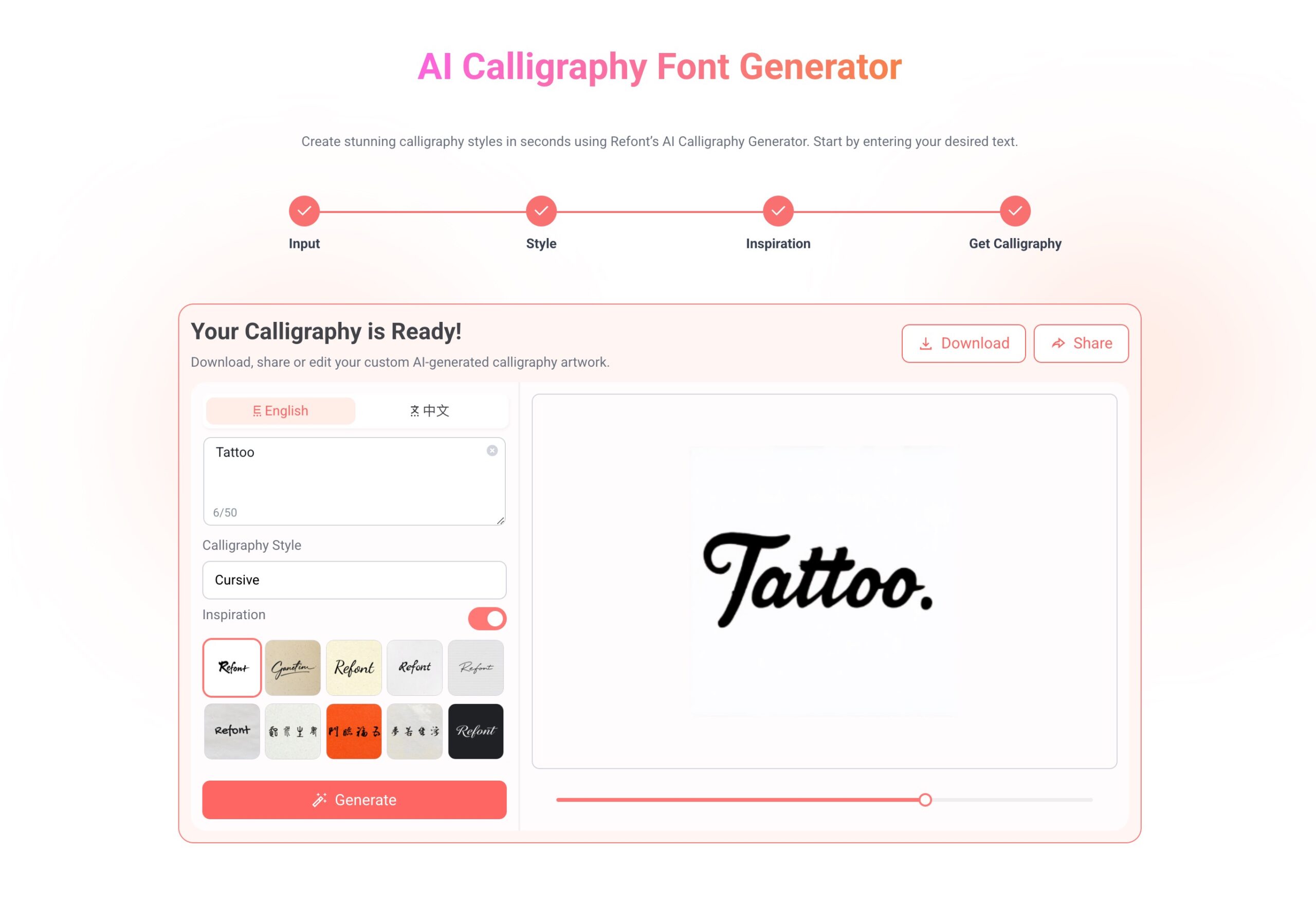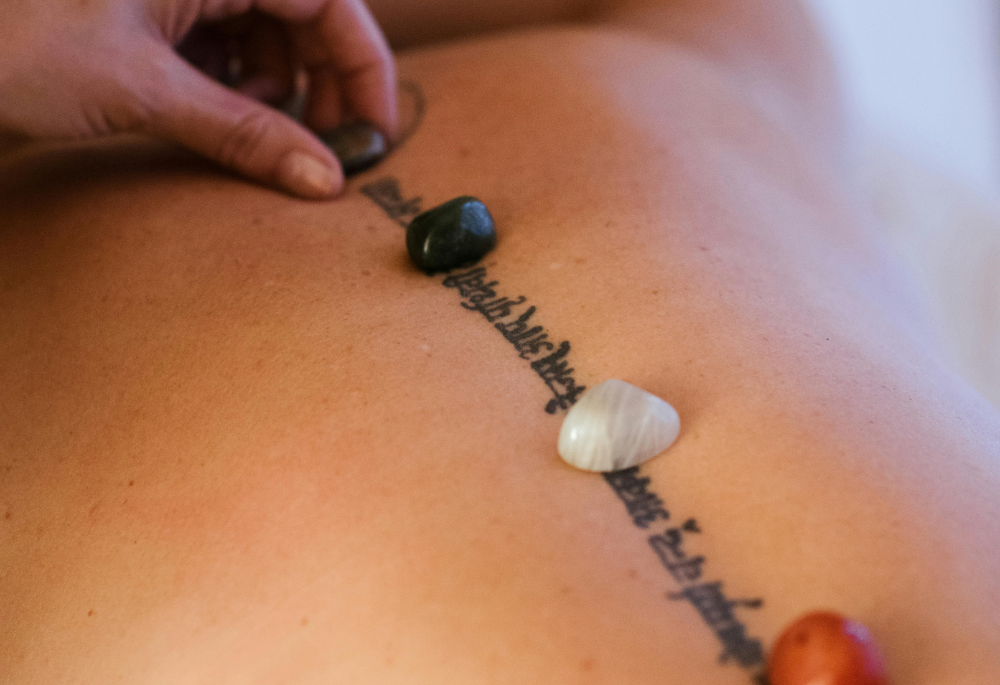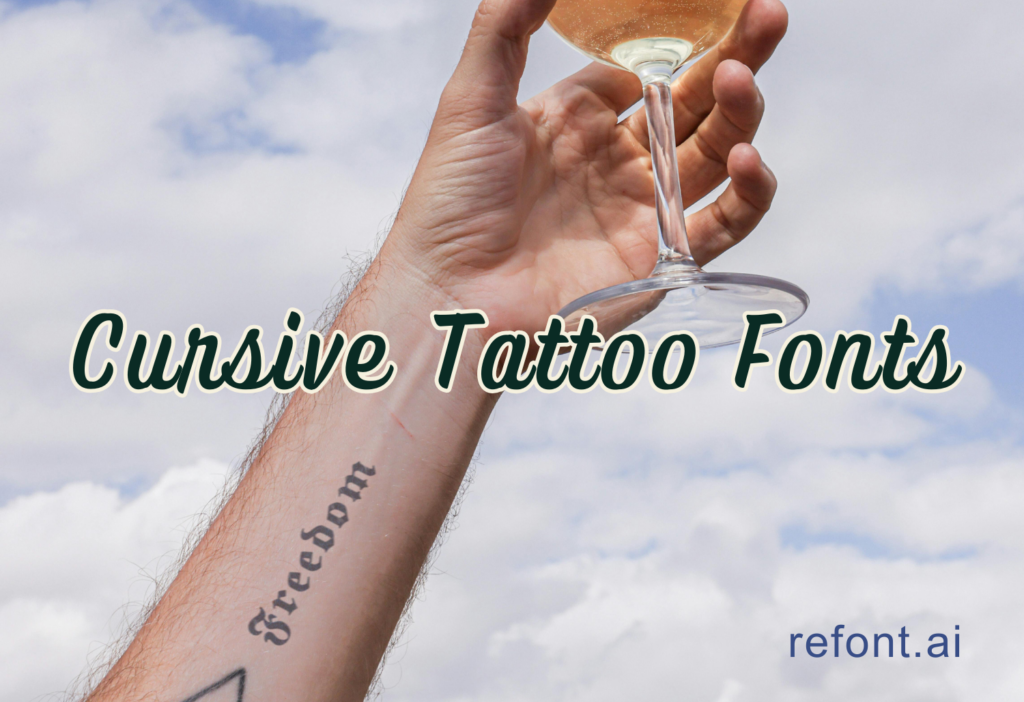
Free Cursive Tattoo Fonts
Tattoos tell stories—stories inked in flesh, etched in memory, and often written in beautiful cursive tattoo font. But not all cursive fonts translate well into skin art. Some curl beautifully on paper, others fade into a curly mess. So how do you pick the perfect cursive tattoo font that says “you” without turning into a smudge? Enter Refont. We’ve curated cursive tattoo fonts inspired by global tattoo culture, and we’ll show you how to use the Fancy Fonts Generator, AI Calligraphy Font Generator, and more to create reference-ready designs. Let’s dive in.
Why Choose a Cursive Tattoo Font?
1. Elegance & Personality
Cursive lines mimic handwriting—intimate and timeless. A well-chosen cursive tattoo font captures your personality.
1. Flow on Skin
Cursive fonts adapt naturally to body curves—wrists, ribs, forearms—unlike blocky fonts that can wrinkle or distort.
1. Readability vs. Artistry
Good cursive fonts strike a balance: legible from a distance, yet artful up close.
1. Cultural Roots
American traditional, Indigenous lettering, modern script—all influence cursive tattoo fonts. We’ll explore them below.
Cursive tattoo font
25 Best Cursive Tattoo Font Styles
Classic American Script (1950s → Present)
1. Classic Americana – Thick downstrokes, thin upstrokes; reminiscent of diner menus.
2. Old School Swirls – Vintage flair with ornamental loops—great for names.
3. Retro Chainscript – Compact, bold, perfect for forearm bands.
4. High-Contrast Brush – Sharp contrast for better readability.
5. Lobster-style Script – Playful and bold.
Boho Aussie Flair
1. Beachside Waves – Relaxed loops like ocean waves.
2. Outback Loops – Wide, flowing strokes inspired by Australia’s open spaces.
3. Urban Brush – Grungy brush strokes from Melbourne’s street art scenes.
4. Minimal Camper Script – Simple, spacious lines for minimalist tattoos.
5. Surfside Signature – Casual cursive like surfboard autographs.
Maple‑Leaf Modern (Canada)
1. Maple Monoline – One line weight, clean and elegant.
2. Saskatchewan Script – Slight slant, rustic and homely.
3. Urban Toronto – Smooth and metropolitan.
4. Pacific Coast Script – Chill vibes reminiscent of Vancouver.
5. Quebec Vintage – Fancy accents and old-world charm.
Indigenous-Inspired Scripts
1. Inuk Brush – Inspired by Inuit art lines.
2. First Nations Curves – Incorporates bead and totem motifs.
3. Aboriginal Dot Script – Dotted accents nod to Dreamtime.
4. Maori-Inspired Flow – Spiraling lines influenced by koru.
5. Pow Wow Script – Rhythmic readability with cultural flair.
High‑End Calligraphic Creations
1. Copperplate Classic – Elegant and elongated, perfect for names.
2. Spencerian Elegance – 19th-century penmanship revived.
3. Modern Brush Script – Lively and tech-friendly.
4. Arabic-Inspired Twist – Flourishes that hint at Arabic calligraphy.
5. High-Contrast Italic – Strong slant, formal presence.
Professional Tips from Tattoo Artists
• Line weight matters: Too thin = fades; too thick = blurs. Most artists recommend mid-weight cursive scripts.
• Spacing is key: Cursive tattoos breathe better when letters aren’t cramped.
• Skin tone & color: Cursive fonts often show better in black or deep colors—avoid pastel fades.
• Healing timeline: Fine curls can blur if tattoo is placed over joints—consider placement carefully.
Tattoo Culture in USA, AUS, CAN
• USA: Script tattoos became mainstream in the 90s, influenced by hip-hop and Chicano cultures.
• Australia: Street-art-inspired scripts from Melbourne shape cursive tattoo trends.
• Canada: A blend of Indigenous symbolism and modern minimalism influences current designs.
This cultural mix explains the diversity in our selected cursive tattoo fonts—each with roots in real-world styles.